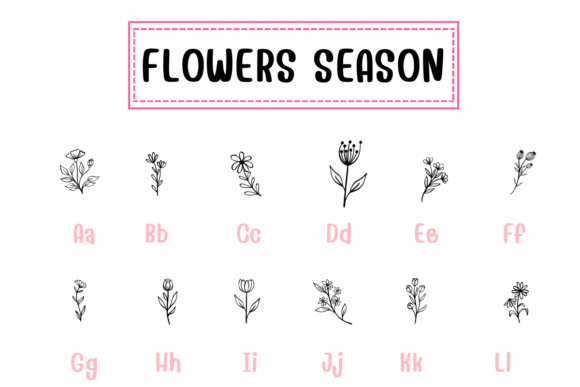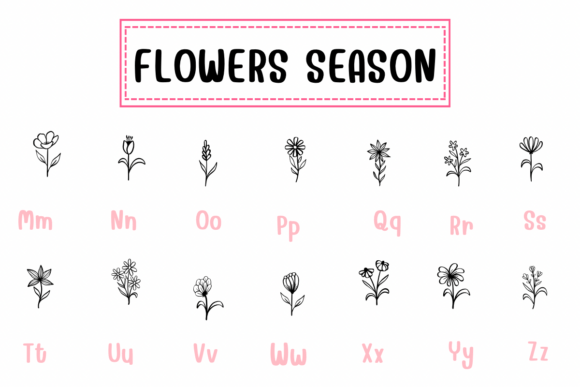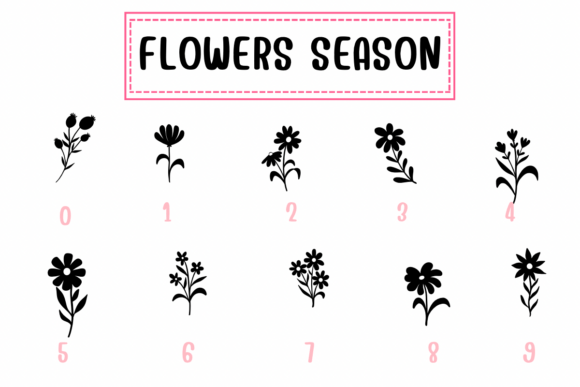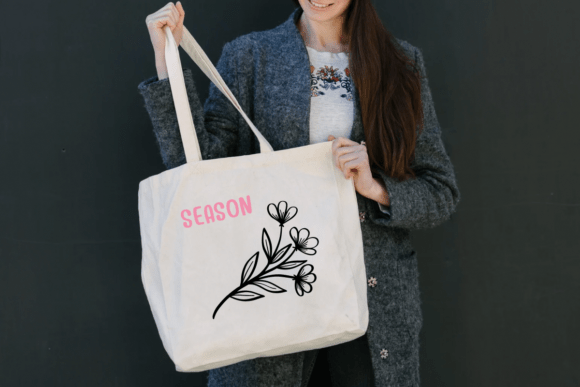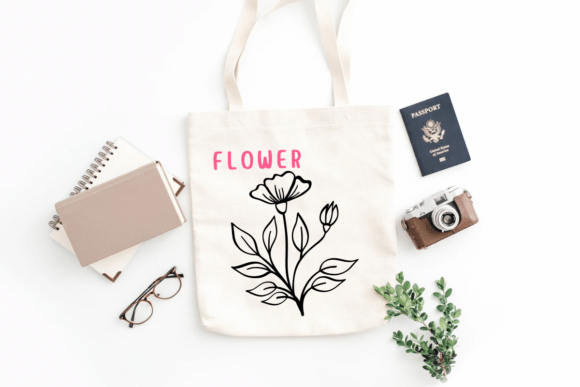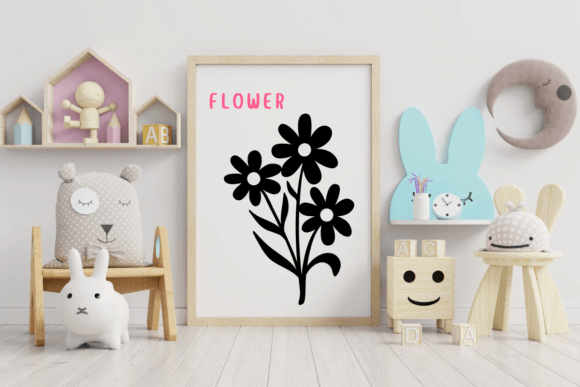
Introducing Flowers Season Font: A Delightful Dingbats Font for Creative Decoration
Are you looking for a font that can add a touch of whimsy and charm to your designs? Look no further than Flowers Season Font, a joyful dingbats font filled with hand-drawn floral elements perfect for creative decoration. This charming set includes a wide variety of whimsical flower illustrations that can be used as standalone graphics or accents in your designs.
What is Flowers Season Font?
Flowers Season Font is a unique and versatile dingbats font that features a collection of hand-drawn floral elements. The font includes a wide range of illustrations, from simple flowers and leaves to more complex arrangements and bouquets. Each element is carefully crafted to add a touch of elegance and sophistication to your designs.
Flowers Season Font is ideal for a variety of creative projects, including greeting cards, seasonal posters, scrapbooking, and crafting. The font’s whimsical and playful illustrations can add a fresh and cheerful vibe to every project. Whether you’re a designer, crafter, or DIY enthusiast, Flowers Season Font is the perfect tool to help you create beautiful and eye-catching designs.
Key Features of Flowers Season Font
- Hand-drawn illustrations: Each floral element in Flowers Season Font is carefully hand-drawn to ensure a unique and personal touch.
- Wide variety of illustrations: The font includes a wide range of illustrations, from simple flowers and leaves to more complex arrangements and bouquets.
- Whimsical and playful: Flowers Season Font features whimsical and playful illustrations that can add a touch of charm and elegance to your designs.
- Scalable: The illustrations in Flowers Season Font are scalable, making them perfect for use in a variety of projects, from small greeting cards to large posters.
Ideas for Using Flowers Season Font
Flowers Season Font is a versatile font that can be used in a variety of creative projects. Here are a few ideas to get you started:
- Greeting cards: Use Flowers Season Font to create beautiful and eye-catching greeting cards for special occasions, such as birthdays, weddings, and holidays.
- Seasonal posters: Create seasonal posters using Flowers Season Font to add a touch of whimsy and charm to your designs.
- Scrapbooking: Use Flowers Season Font to add a personal touch to your scrapbooking projects.
- Crafting: Flowers Season Font is perfect for crafting projects, such as making gift tags, gift wrapping, and DIY decorations.
Tips for Getting the Most Out of Flowers Season Font
Here are a few tips for getting the most out of Flowers Season Font:
- Experiment with different colors: Try using different colors to add a pop of color to your designs.
- Mix and match illustrations: Combine different illustrations to create unique and eye-catching designs.
- Use with other fonts: Use Flowers Season Font with other fonts to create interesting and dynamic text.
Flowers Season Font is a delightful dingbats font that is perfect for creative decoration. With its hand-drawn floral elements and whimsical illustrations, it’s ideal for a variety of creative projects, from greeting cards to seasonal posters. Whether you’re a designer, crafter, or DIY enthusiast, Flowers Season Font is a must-have tool for adding a touch of charm and elegance to your designs.